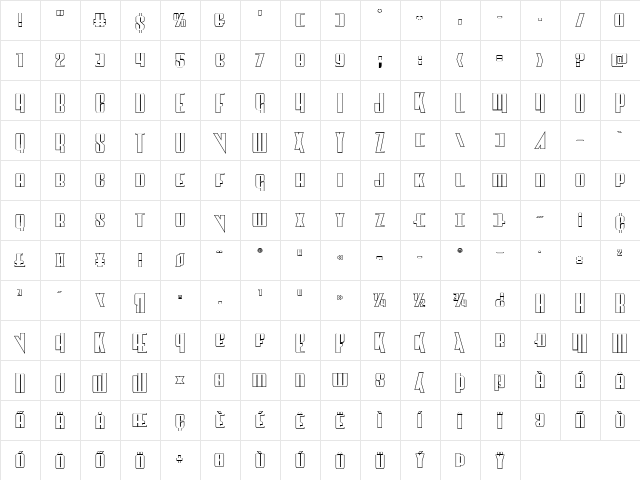
Vindicator Outline Regular
Design Context for Vindicator Outline Typeface
Vindicator Outline brings ornamental detail and strong personality to headlines and identities, where visual impact matters more than quiet functionality.
Font Pairing: Pair with a clean neutral sans-serif for body copy to let Vindicator Outline's character lead without overwhelming the composition.
Pro Tip: Use Vindicator Outline exclusively at display sizes — it was designed to be seen, not read at length. Let a neutral companion handle body copy.